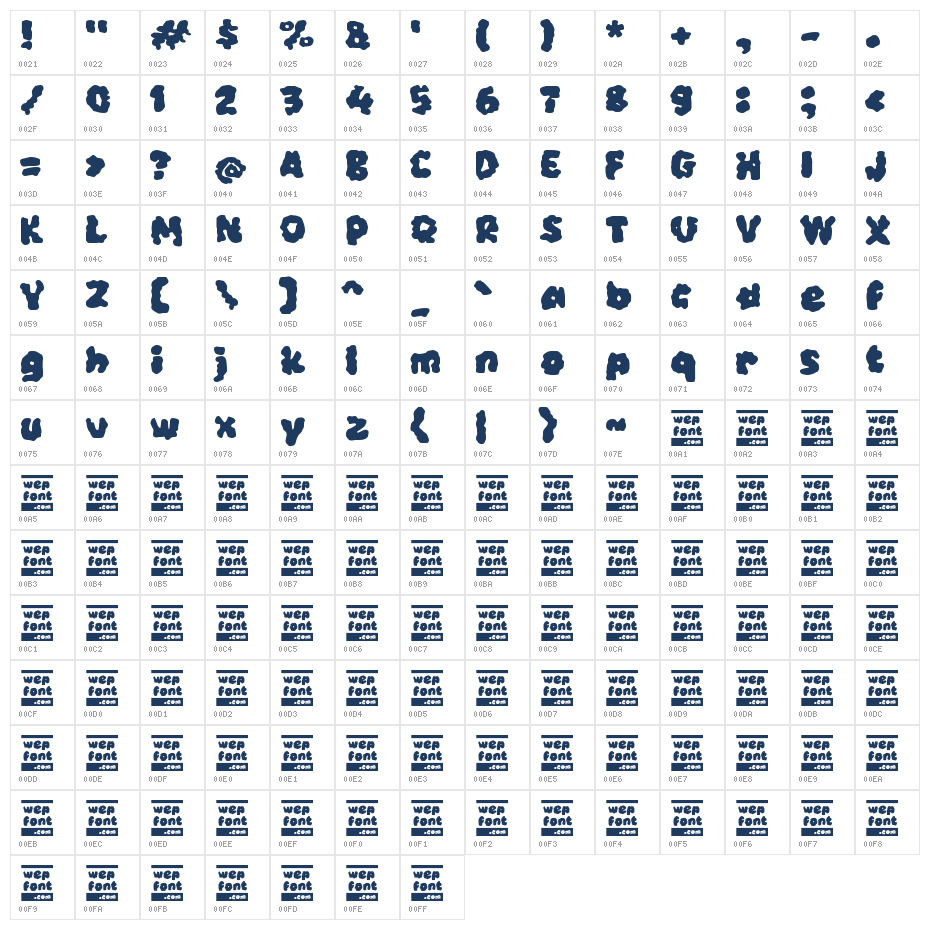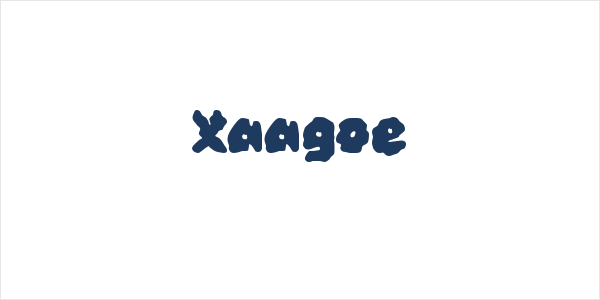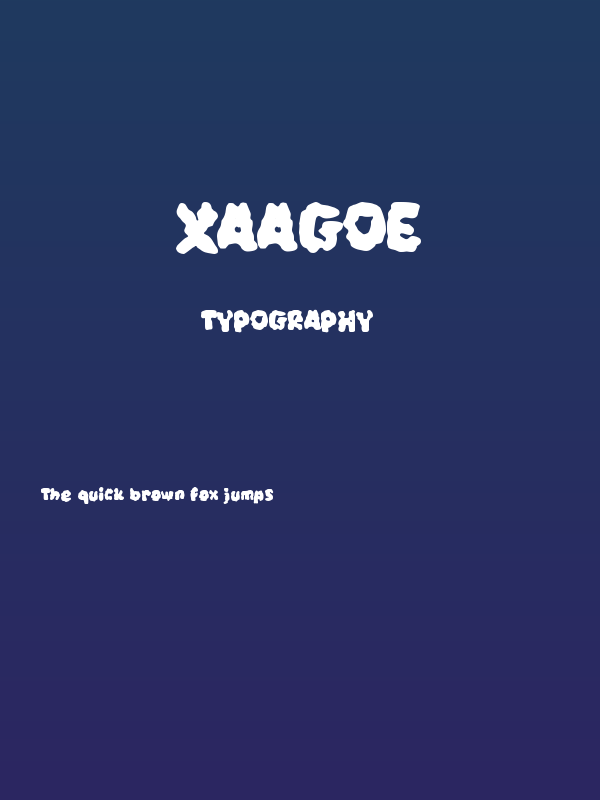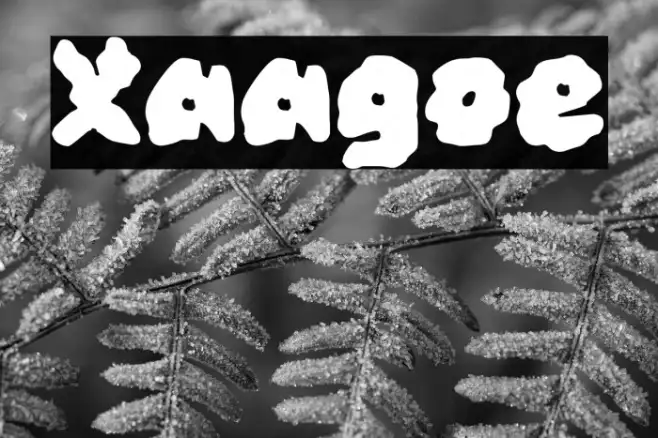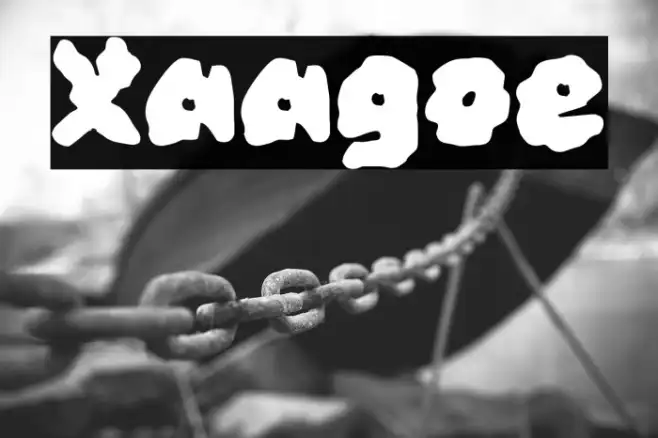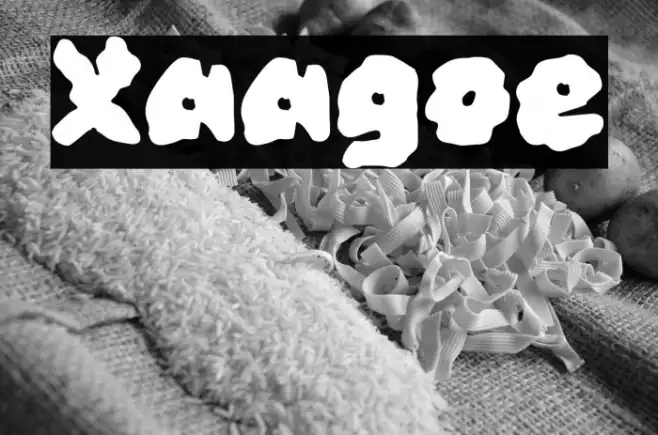
Xaagoe Font
Xaagoe Description
A bold, playful, and chunky display font with irregular, rounded shapes that resemble a hand-drawn or cartoonish style.
XAAGOE UPPERCASE
XAAGOE LOWERCASE
XAAGOE OTHER CHARS
| Overall Style | Playful, Cartoonish, Informal |
| Use Case | Headlines, Posters, Logos, Children's products |